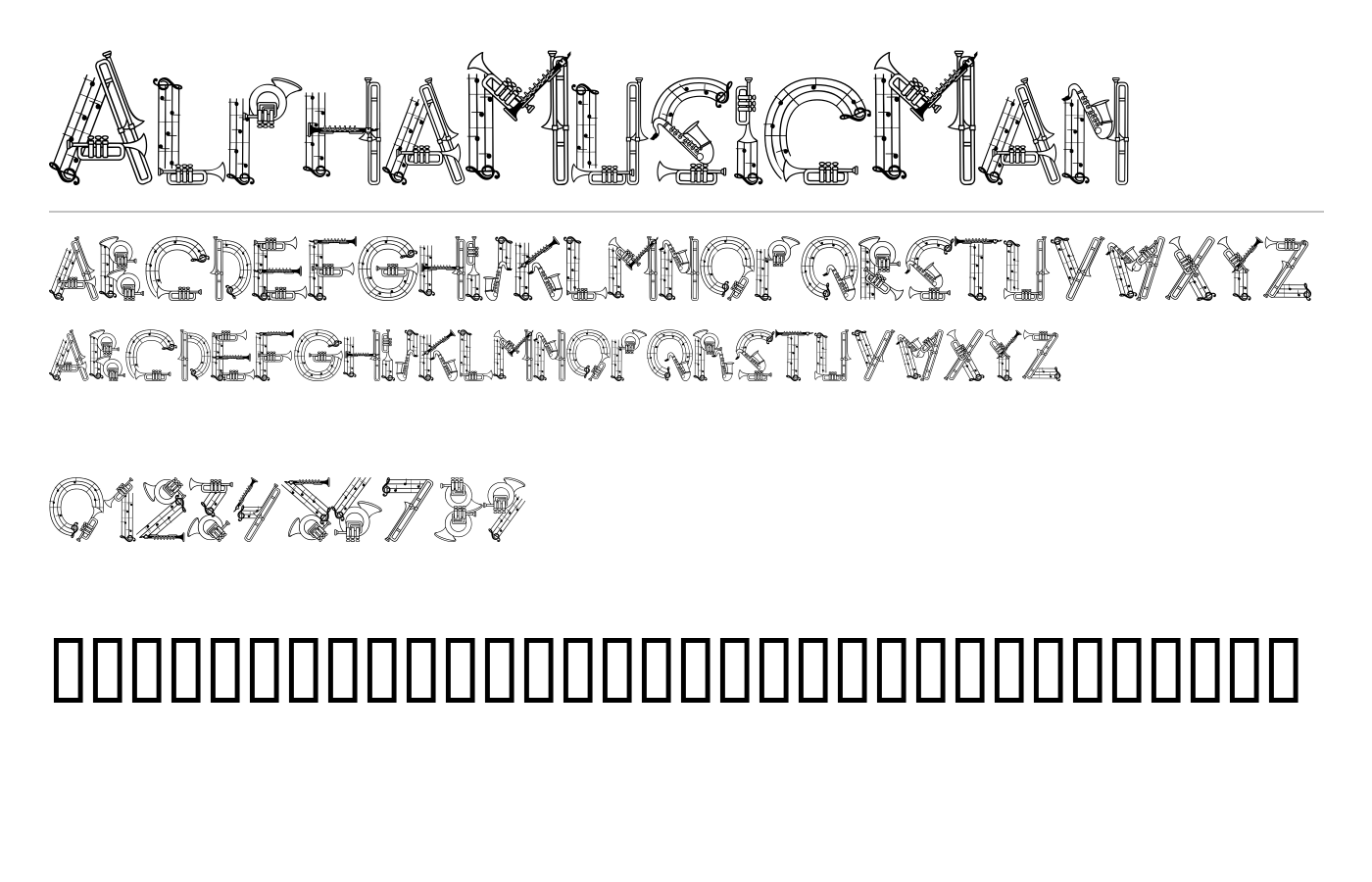
AlphaMusicMan is a decorative, themed font designed with intricate musical instrument motifs, primarily brass and wind instruments, forming each letter and number. This font offers a playful yet detailed style that is perfect for music-related branding, posters, and creative headlines where a unique, artistic touch is desired. Its elaborate design makes it best suited for display use rather than body text, capturing attention and adding character to any musical or entertainment project.
AlphaMusicMan Font
About AlphaMusicMan Font